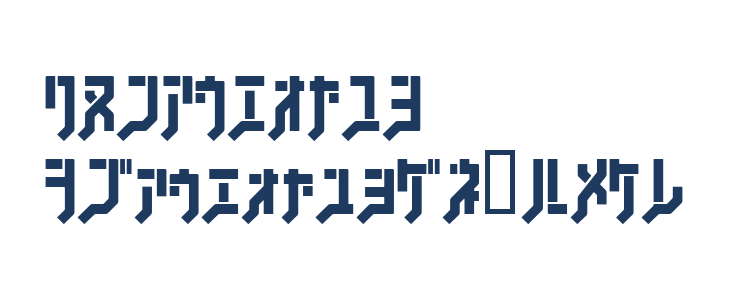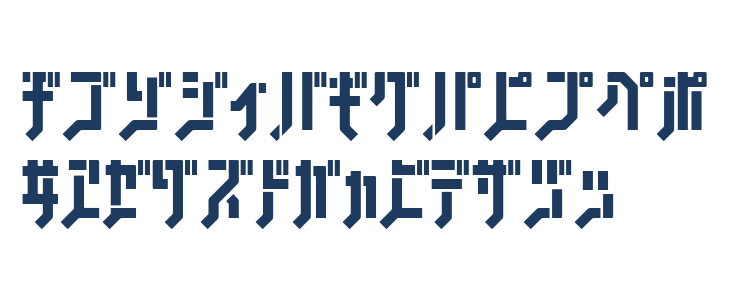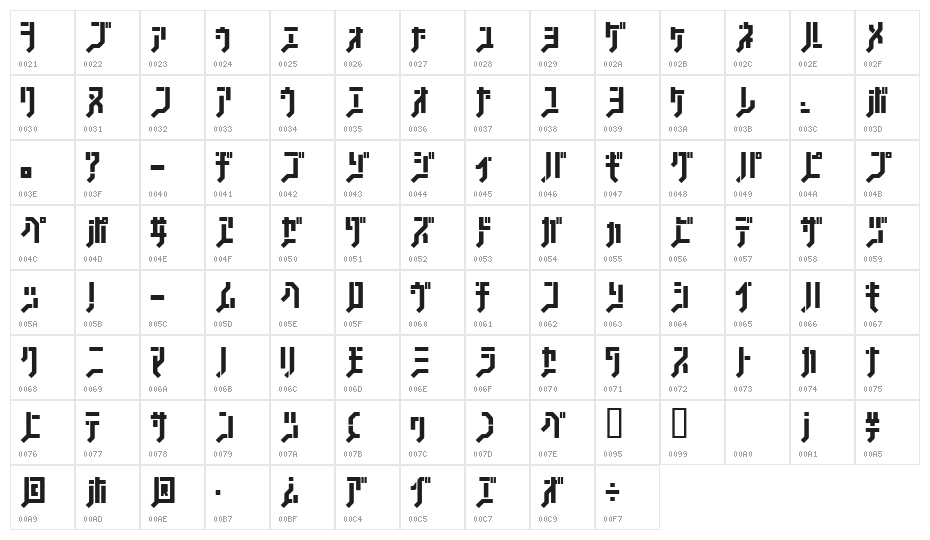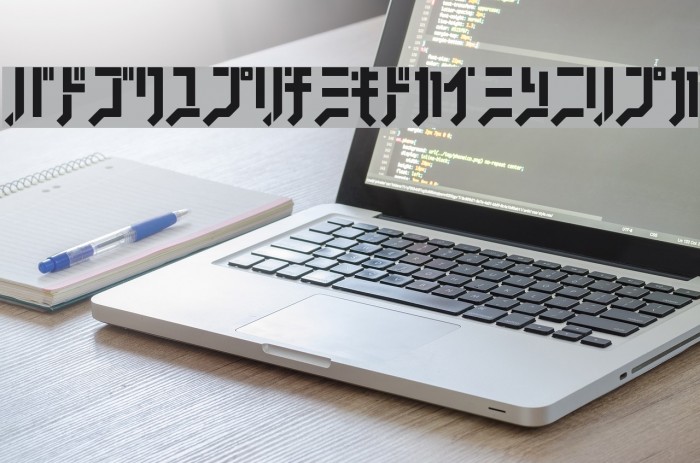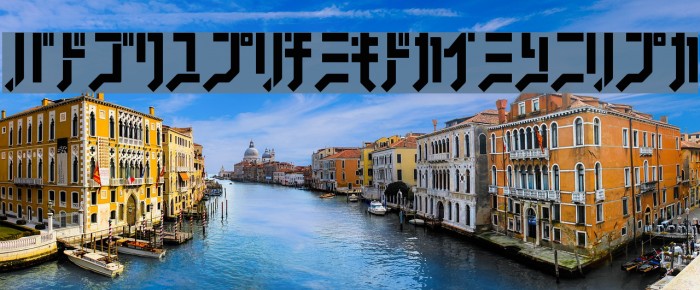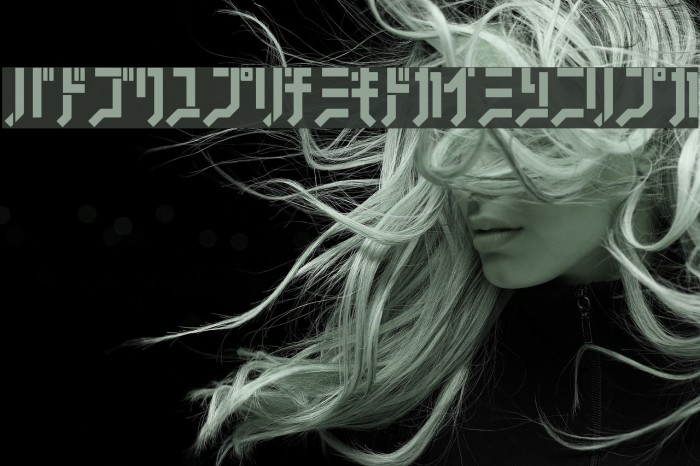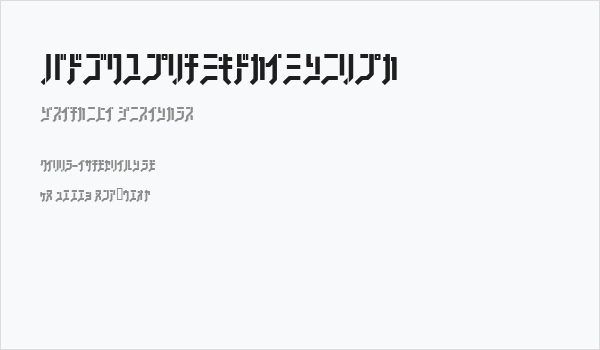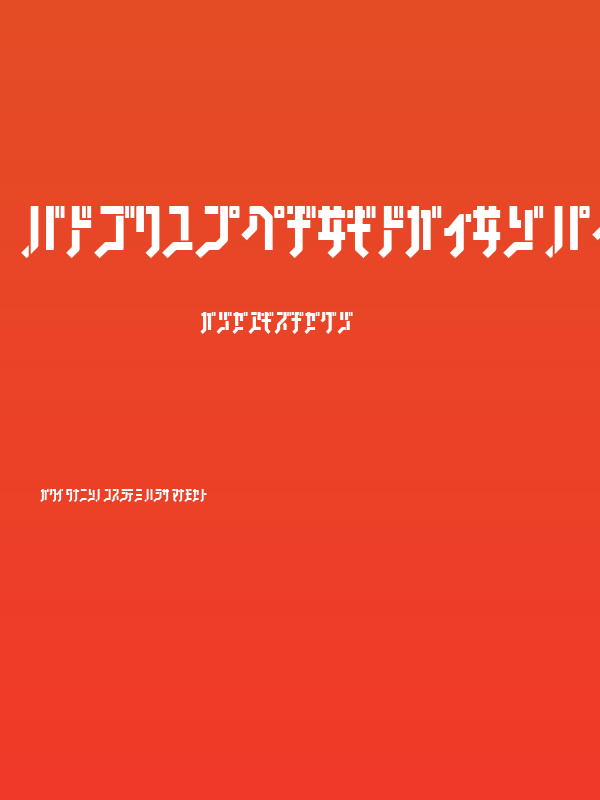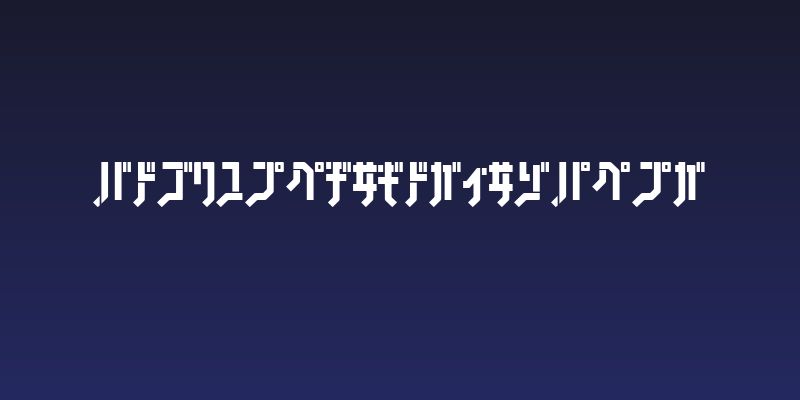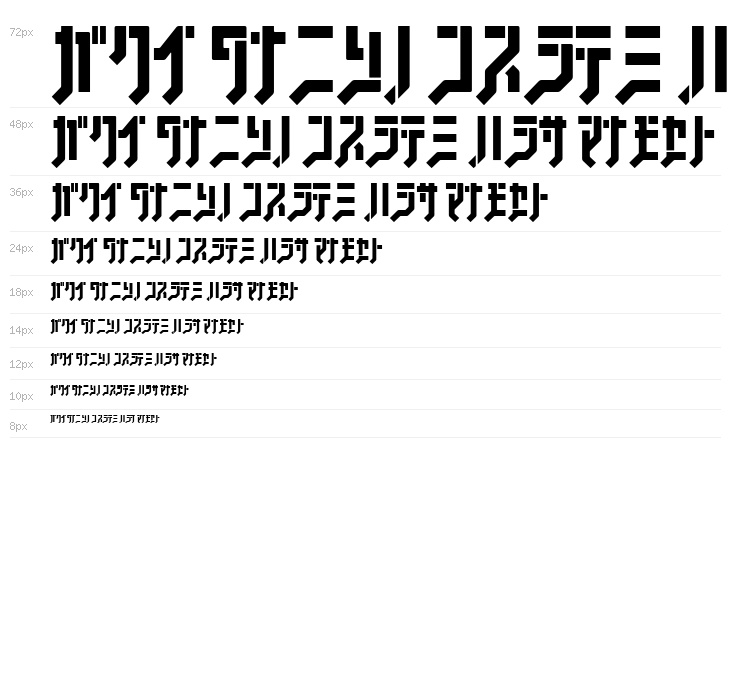
FSB08KlangStencilKt Font
FSB08KlangStencilKt Description
This font features a bold, geometric design with a stencil-like appearance. The characters are constructed with sharp angles and straight lines, creating a modern and industrial feel. The stencil gaps are prominent, giving it a distinct and edgy look. The uppercase letters are uniform in height, while the lowercase letters maintain a consistent style. Numbers and special characters are designed to match the overall aesthetic, making it suitable for impactful and attention-grabbing designs.